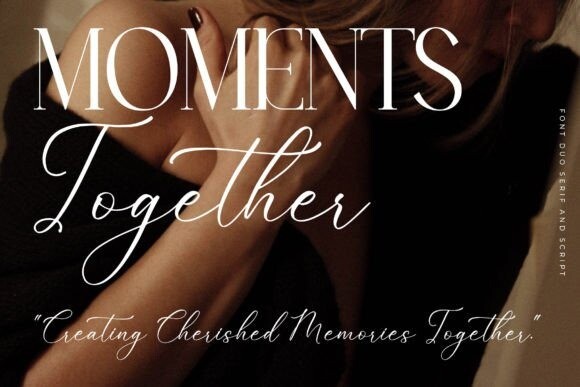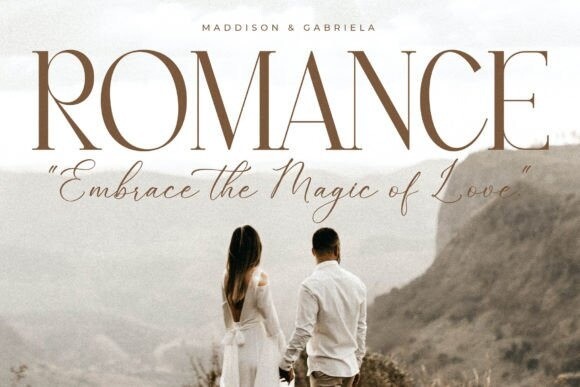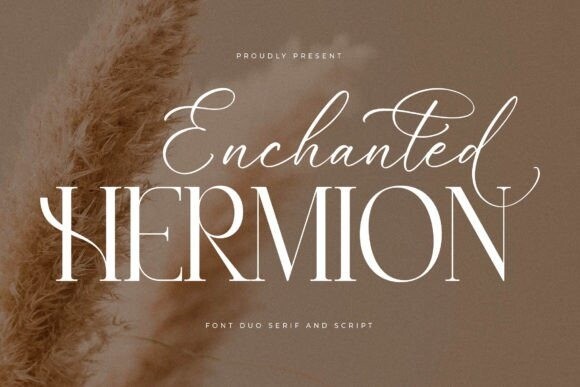
Enchanted Hermion Font
Enchanted Hermion Font Duo. A serif and script typeface that has its own unique style & modern look.
This typeface is perfect for an elegant & luxury logo, book or movie title design, fashion brand, magazine, clothes, lettering, quotes, and so much more.